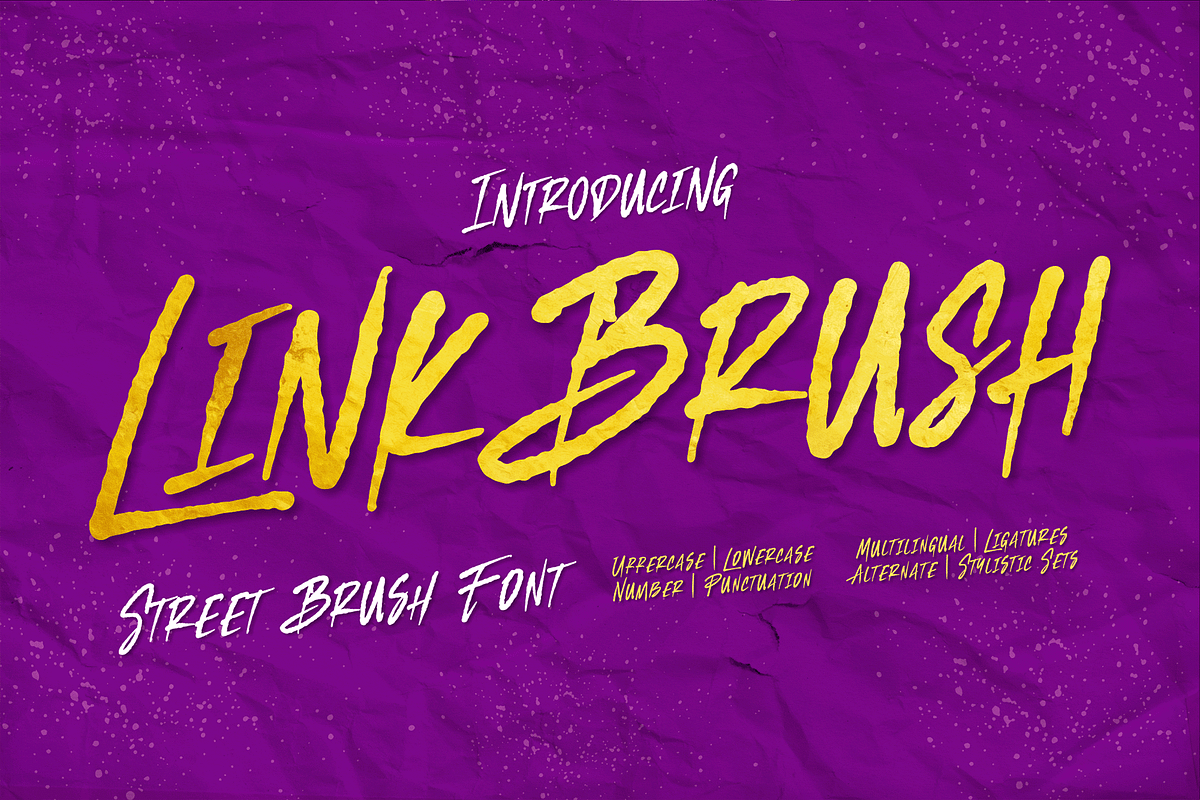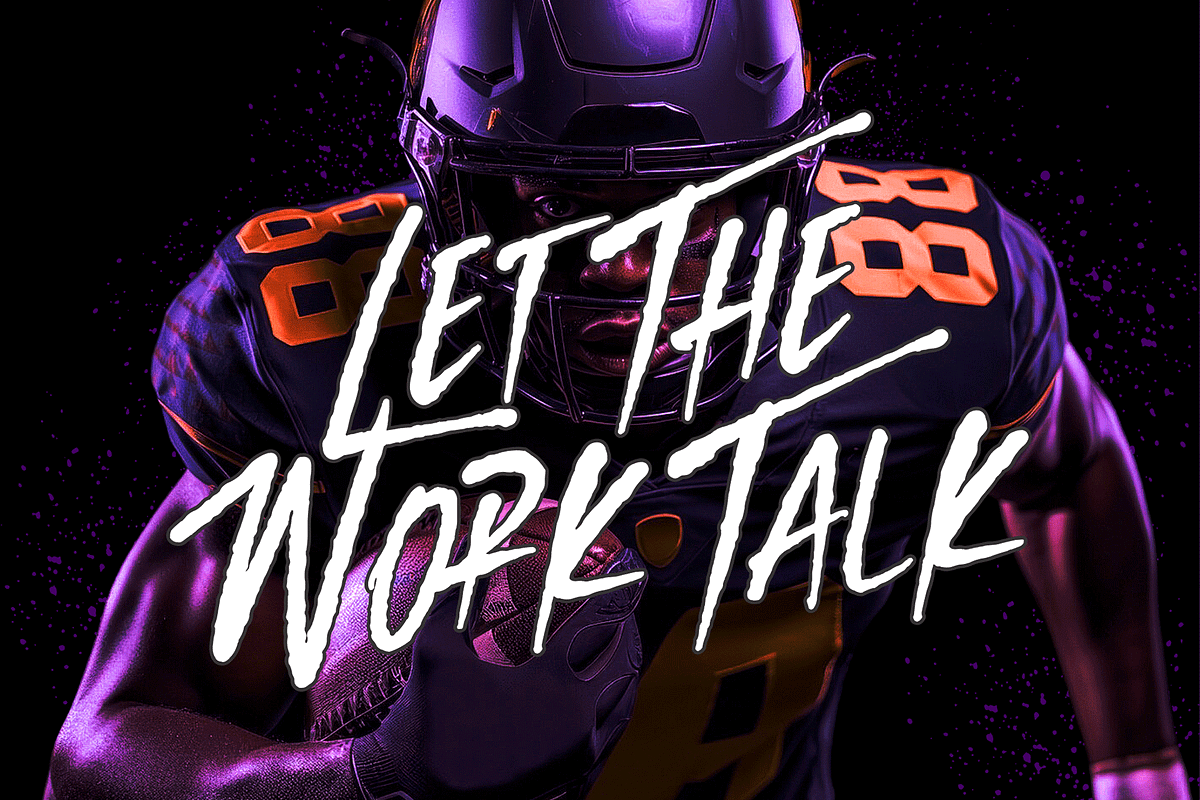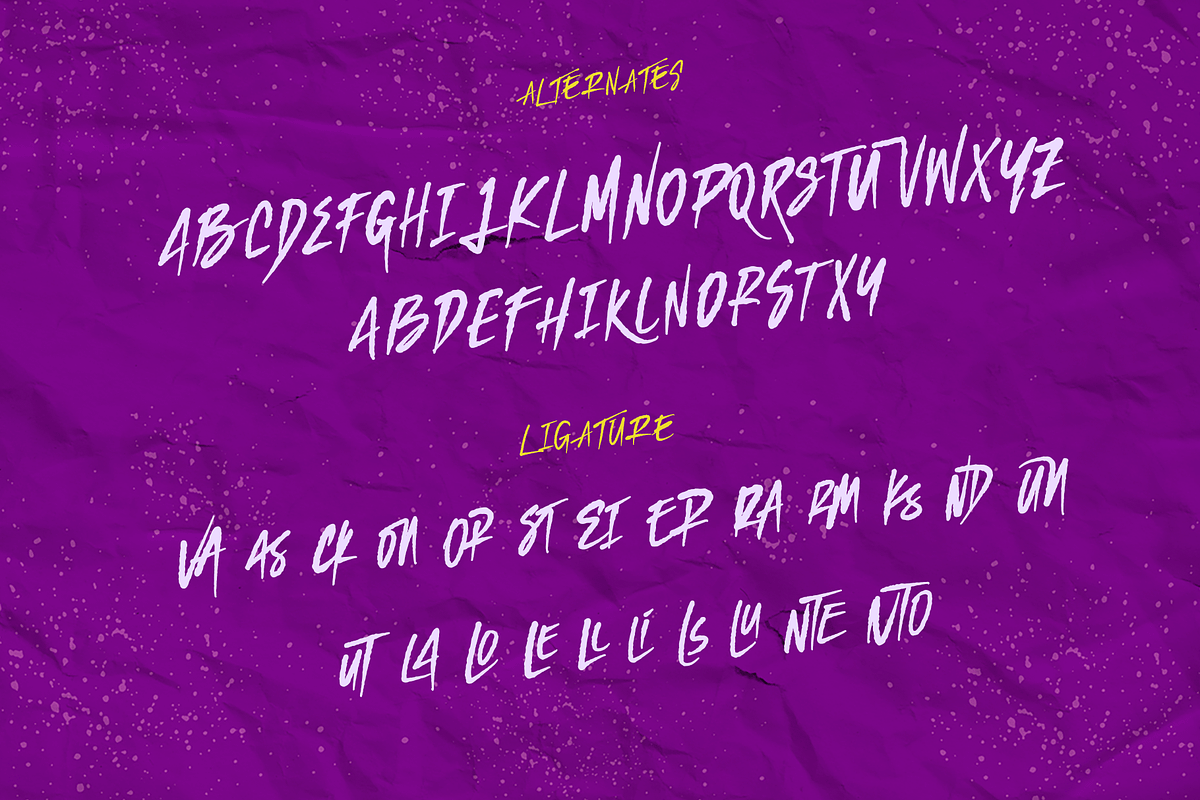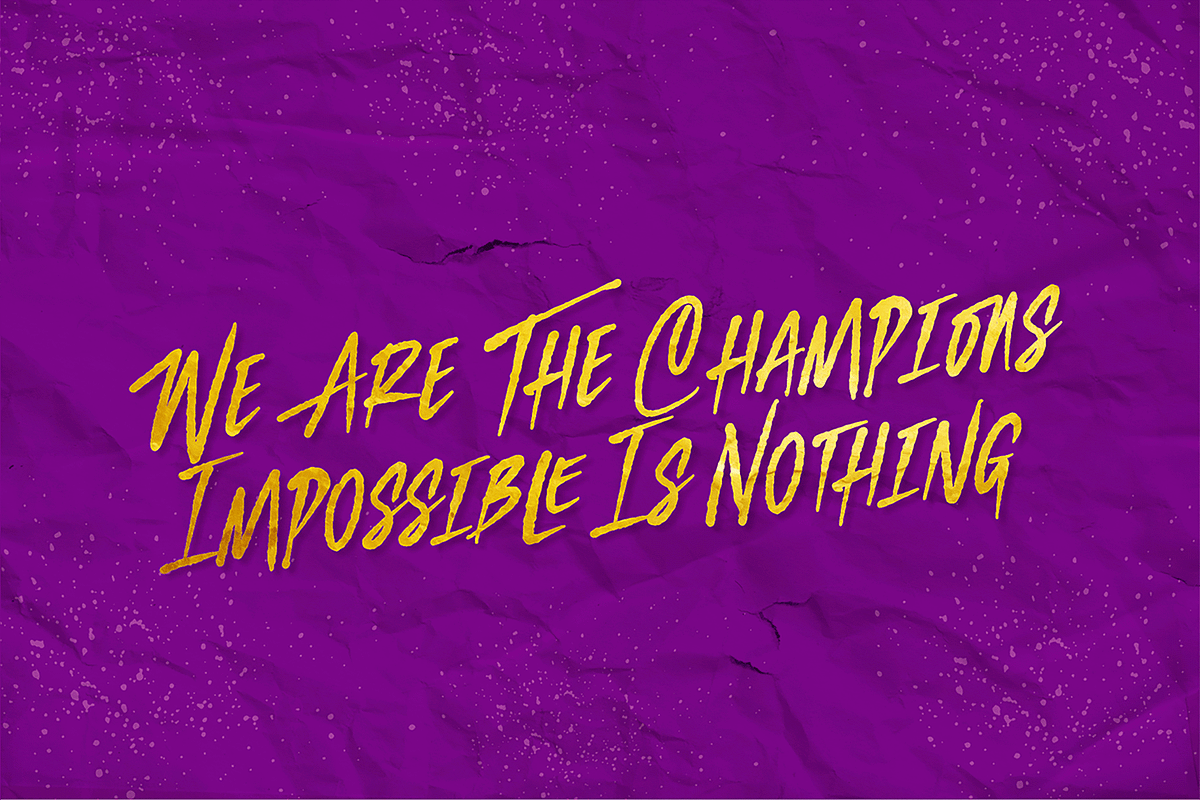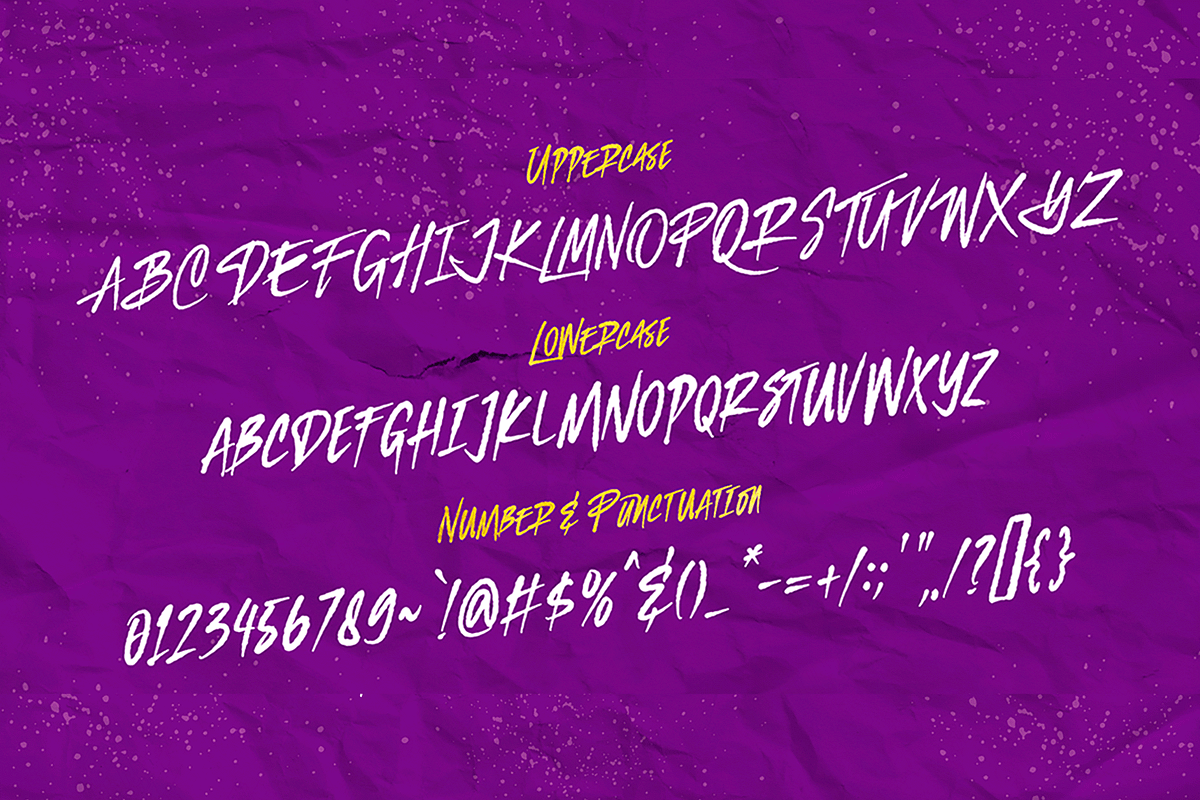
Linkbrush – A Street Brush Font
Linkbrush is a bold and expressive street brush font that brings urban flair and dynamic energy to your designs. Inspired by graffiti and street art, this typeface features rough, hand-drawn strokes with a natural brush texture, making it perfect for edgy branding, posters, apparel, album covers, and social media graphics.
Designed for creatives who want to make a statement, Linkbrush offers a raw, rebellious aesthetic that stands out in any project. It includes uppercase and lowercase letters, numbers, punctuation, and multilingual support, ensuring versatility across various applications.
Whether you're designing for streetwear brands, hip-hop events, or bold marketing campaigns, Linkbrush delivers an authentic, high-impact look that commands attention.